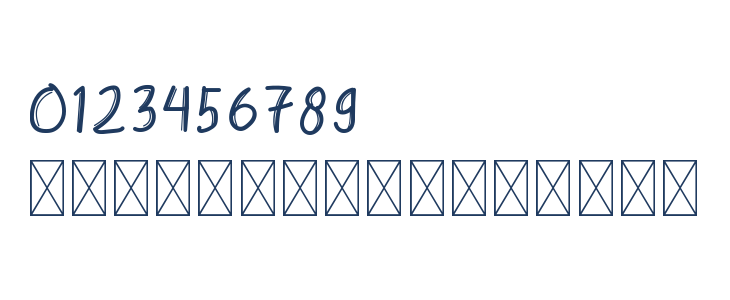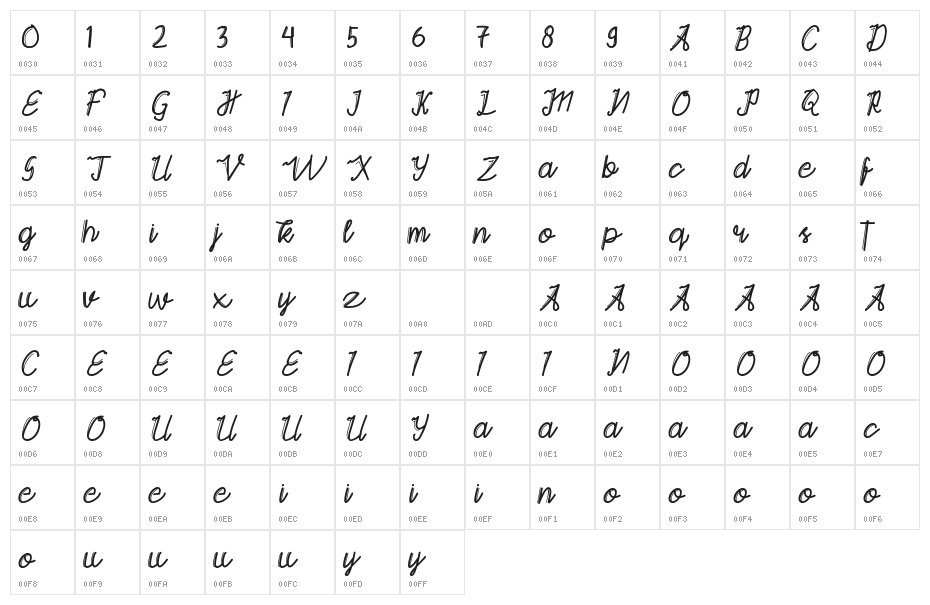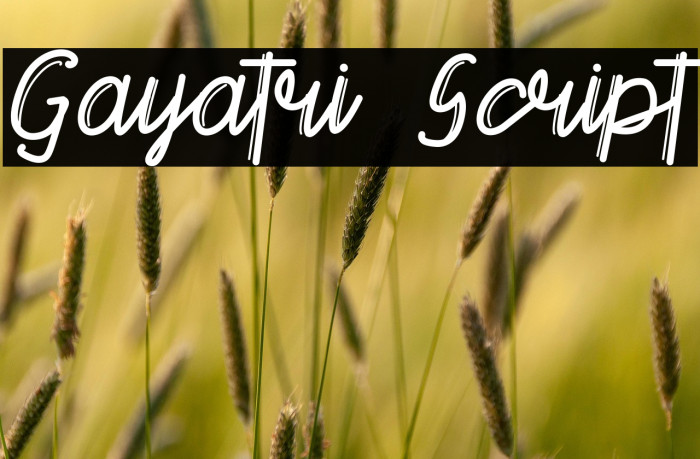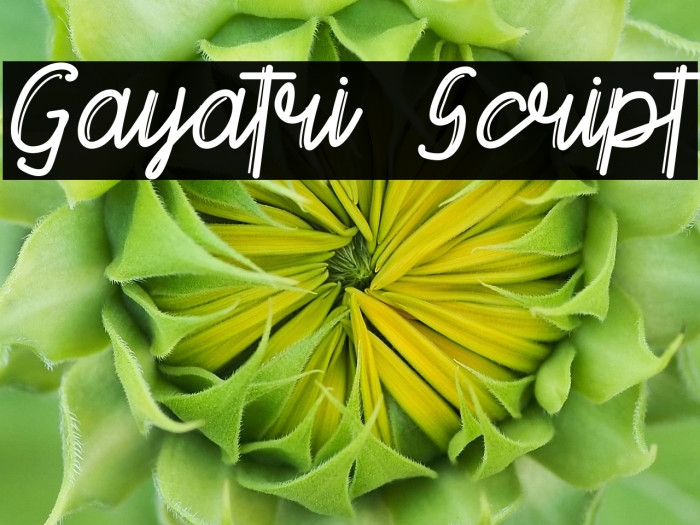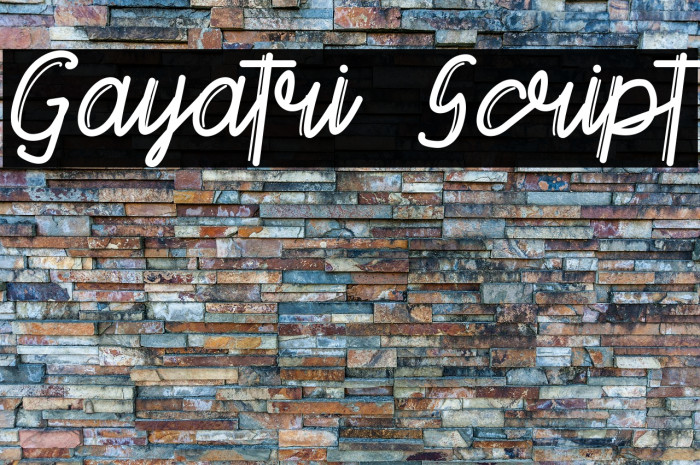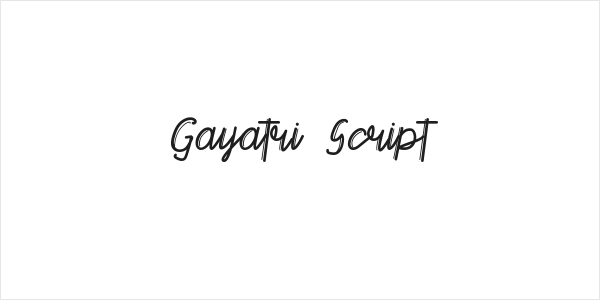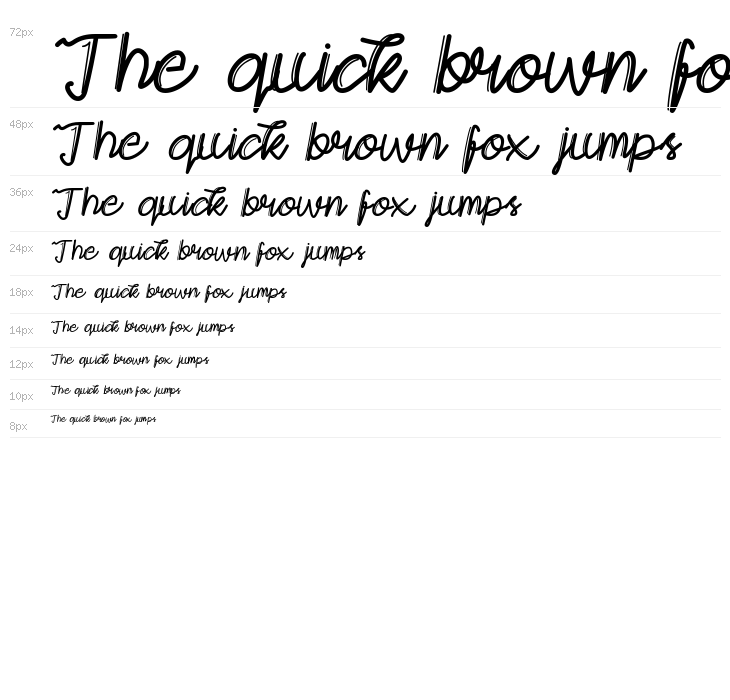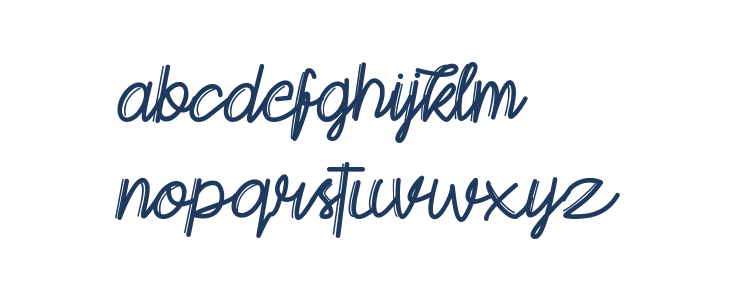
Gayatri Script Font
Gayatri Script Description
This font exudes a lively and dynamic character with its fluid, cursive style. The letters are interconnected, creating a seamless flow that mimics natural handwriting. The uppercase letters are elegantly crafted with a slight slant, while the lowercase letters maintain a consistent rhythm and balance. The numerals are distinct yet harmonize well with the overall script style. Special characters are thoughtfully integrated, enhancing the font's versatility. The strokes are moderately thick, providing a bold appearance without compromising readability.
ContrastMedium
Overall StyleDecorative
Use CaseLogos, Headlines, Invitations
Proposed ProjectsIdeal for wedding invitations, greeting cards, personal branding, and creative projects requiring a personal touch.